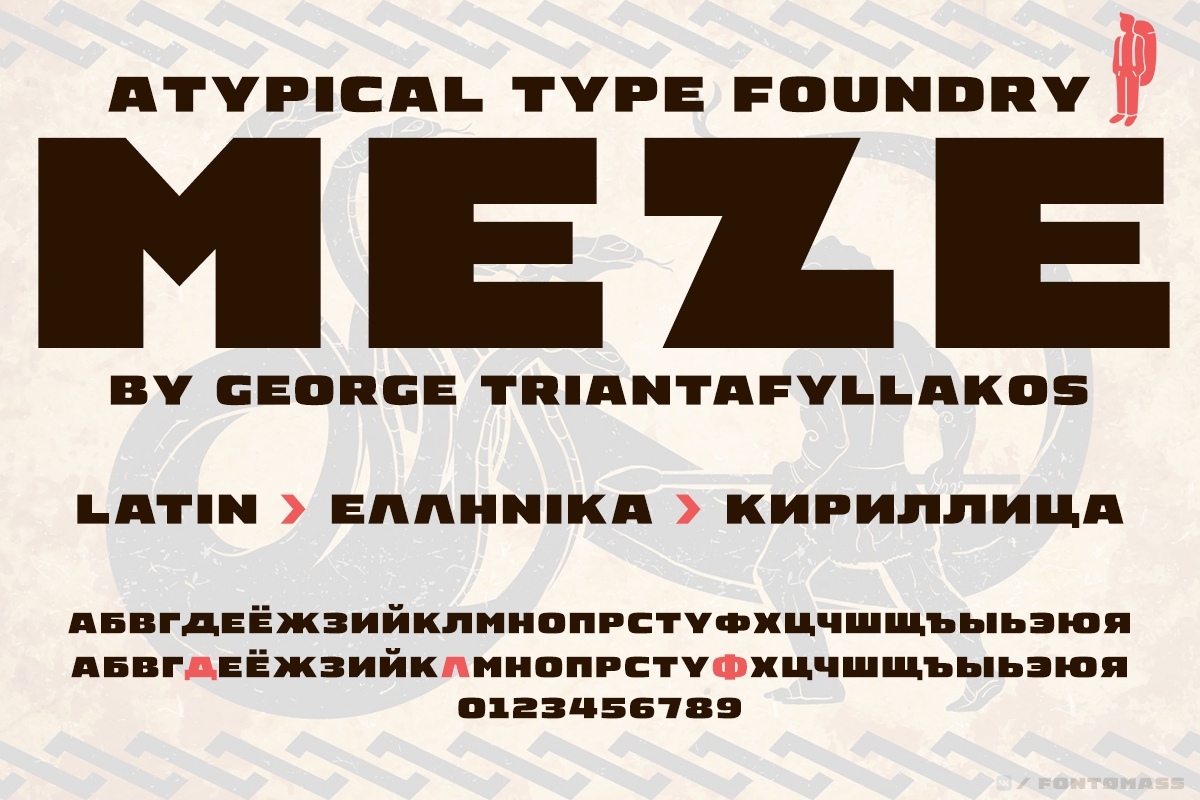
Meze Font
Meze Font is perfect for Mediterranean restaurant branding, Greek taverna signage, Turkish cafe logos, Middle Eastern food packaging, olive oil product labels, authentic cultural event invitations, traditional spice market advertising, coastal resort promotions, artisan food truck designs, and ethnic cuisine cookbooks.
What makes Meze Font so exciting is its extraordinary ability to capture the warm hospitality and rich cultural traditions of Mediterranean dining through letterforms that seem to carry the aroma of fresh herbs and the warmth of shared meals among friends. This inviting typeface draws inspiration from the ancient tradition of meze sharing, featuring characters that embody the generous spirit and communal joy found in Mediterranean hospitality culture. The font's welcoming design elements perfectly balance rustic authenticity with contemporary appeal, creating a versatile tool that communicates cultural heritage, culinary excellence, and social warmth, making it indispensable for brands celebrating the Mediterranean lifestyle and dining traditions.
Meze Font comes in multiple font families including Regular, Bold, Light, Italic, Bold Italic, Rustic, Traditional, and Coastal variations. Each family member maintains the core Mediterranean characteristics while offering different warmth levels and stylistic approaches to suit various cultural design requirements.
The communal spirit in Meze Font makes it particularly suitable for hospitality businesses and cultural organizations celebrating Mediterranean heritage, where creating welcoming, authentic atmospheres is essential for connecting with audiences seeking genuine cultural experiences. Its friendly letterforms maintain excellent readability while preserving the cultural warmth that appeals to diners and travelers seeking authentic Mediterranean encounters.
Cultural hospitality professionals appreciate how Meze Font transforms ordinary promotional text into warm invitations to authentic Mediterranean experiences. The typeface's welcoming character set includes special cultural symbols and Mediterranean elements that enhance the overall hospitable atmosphere of any culturally-focused project.
For creative professionals serving Mediterranean restaurants, cultural tourism, and authentic food brands, Meze Font serves as the perfect foundation for establishing memorable visual identities that capture the essential qualities of Mediterranean hospitality, cultural authenticity, and culinary excellence that make Mediterranean dining experiences beloved worldwide.